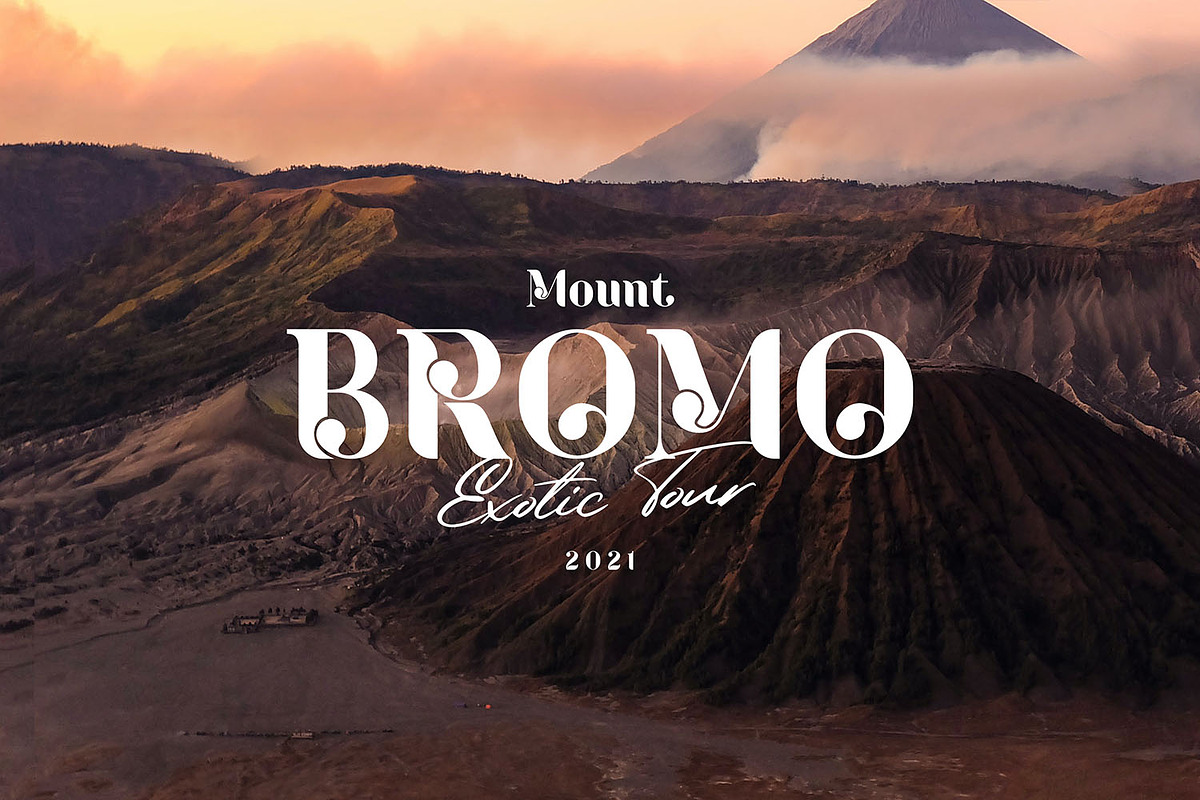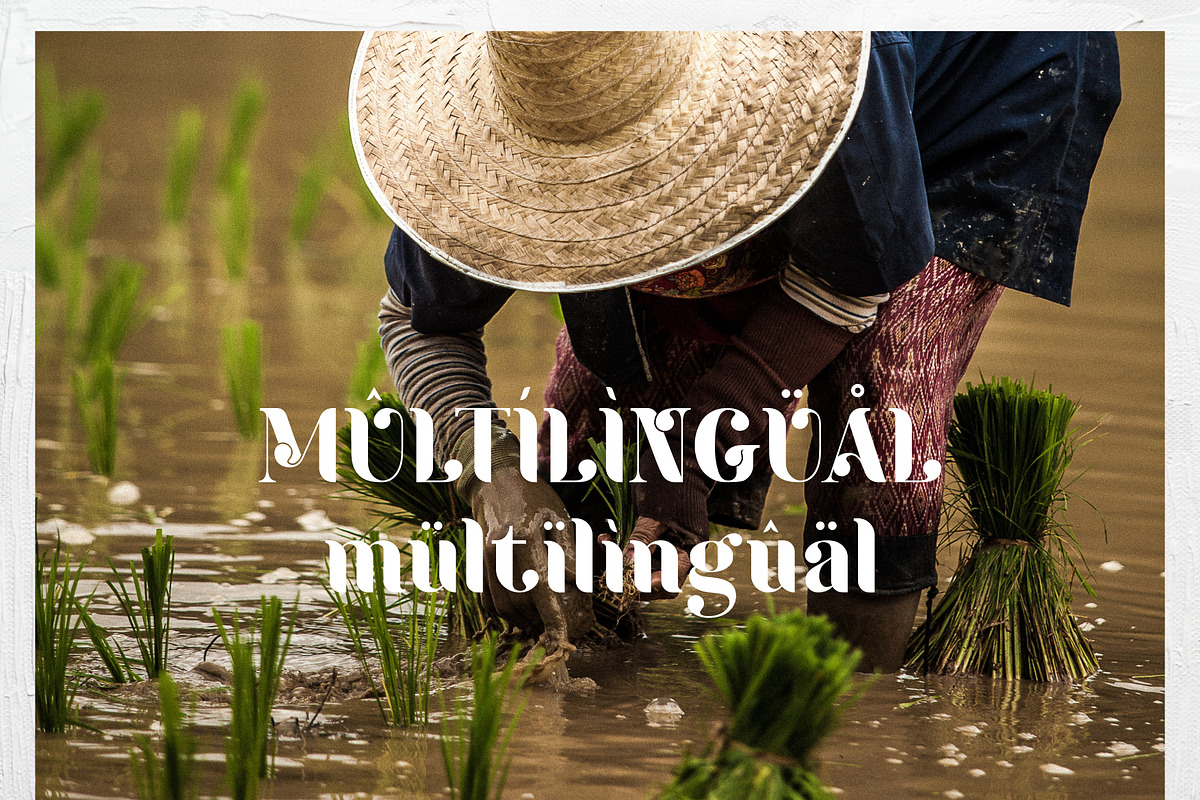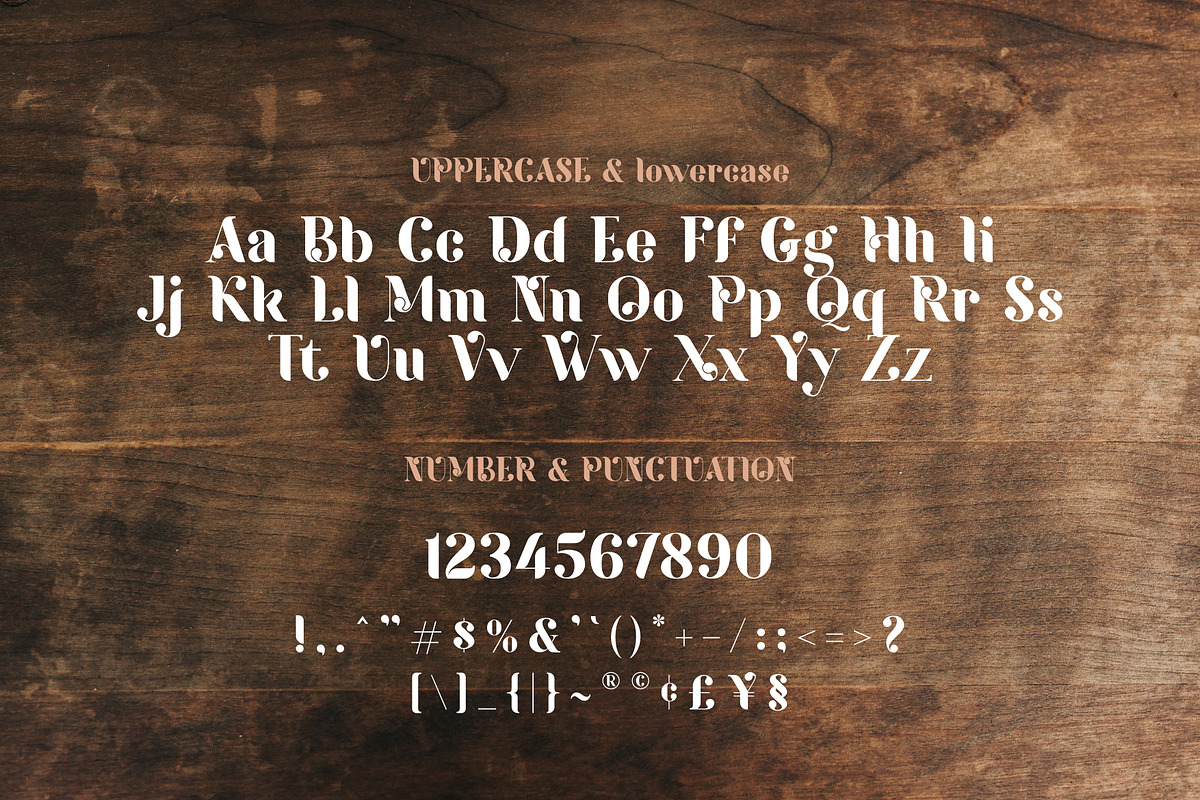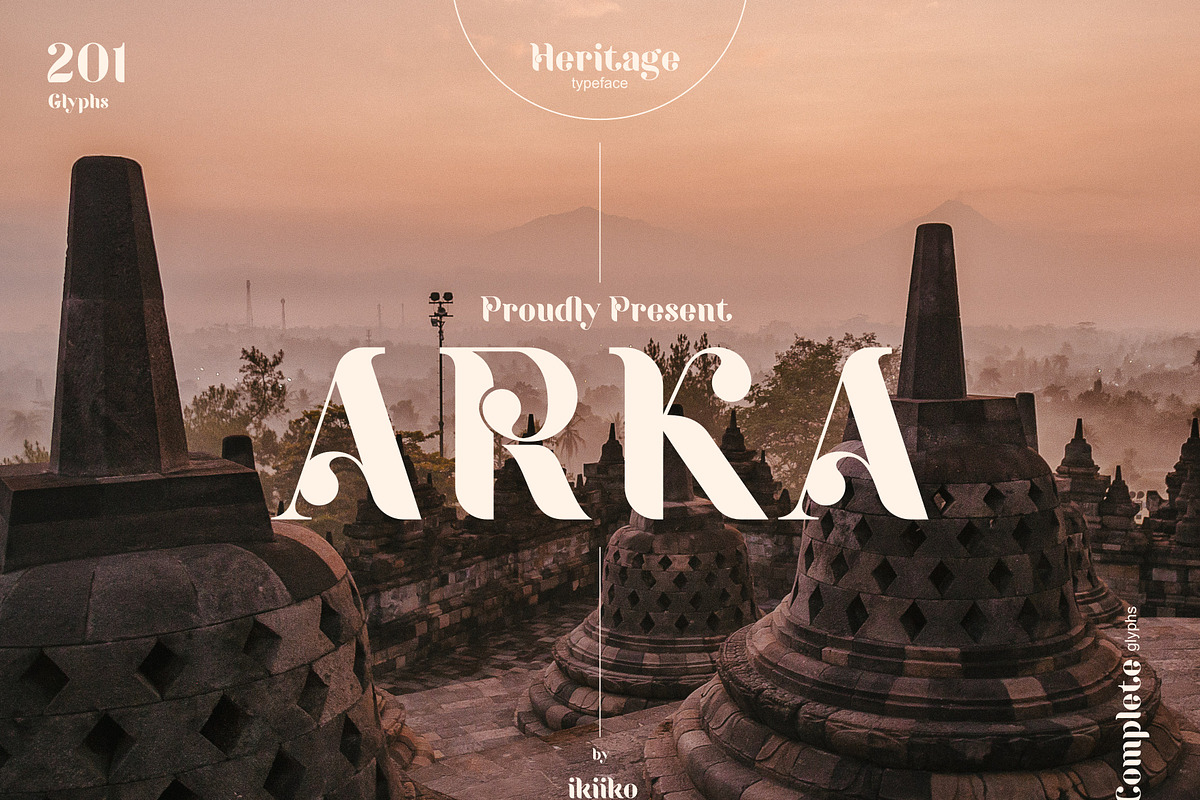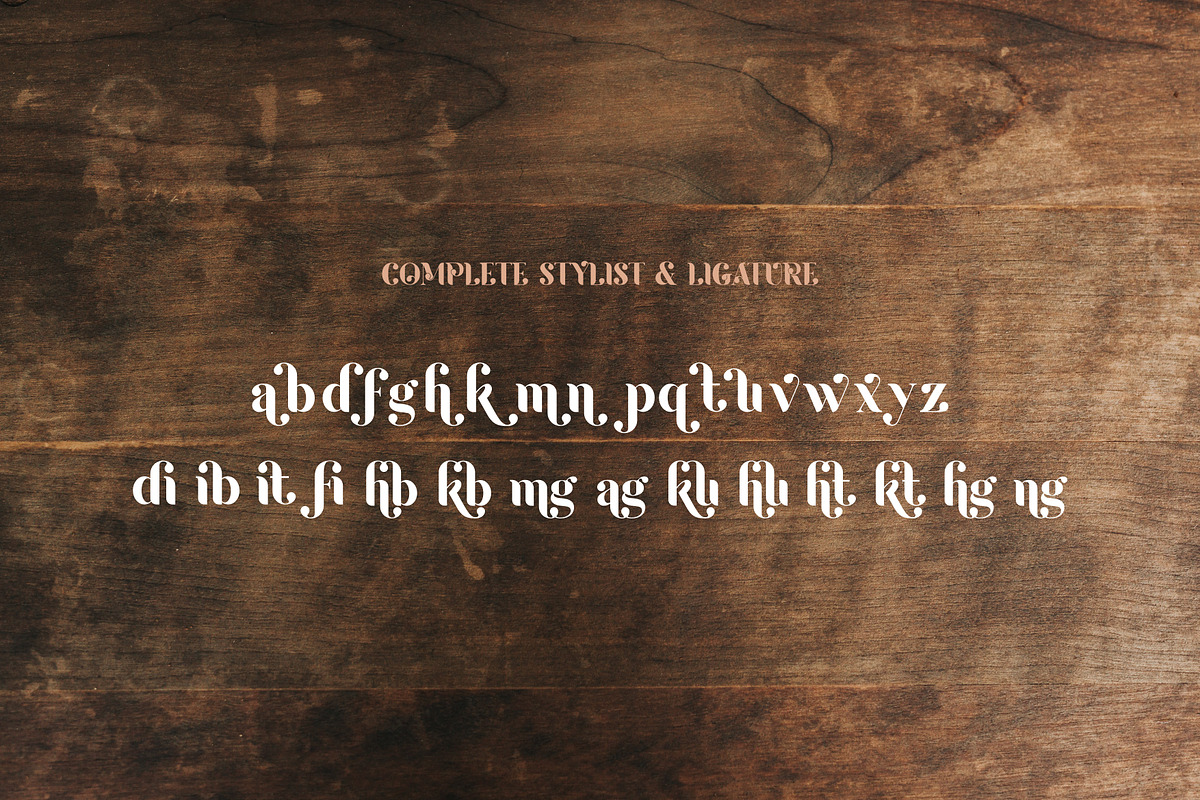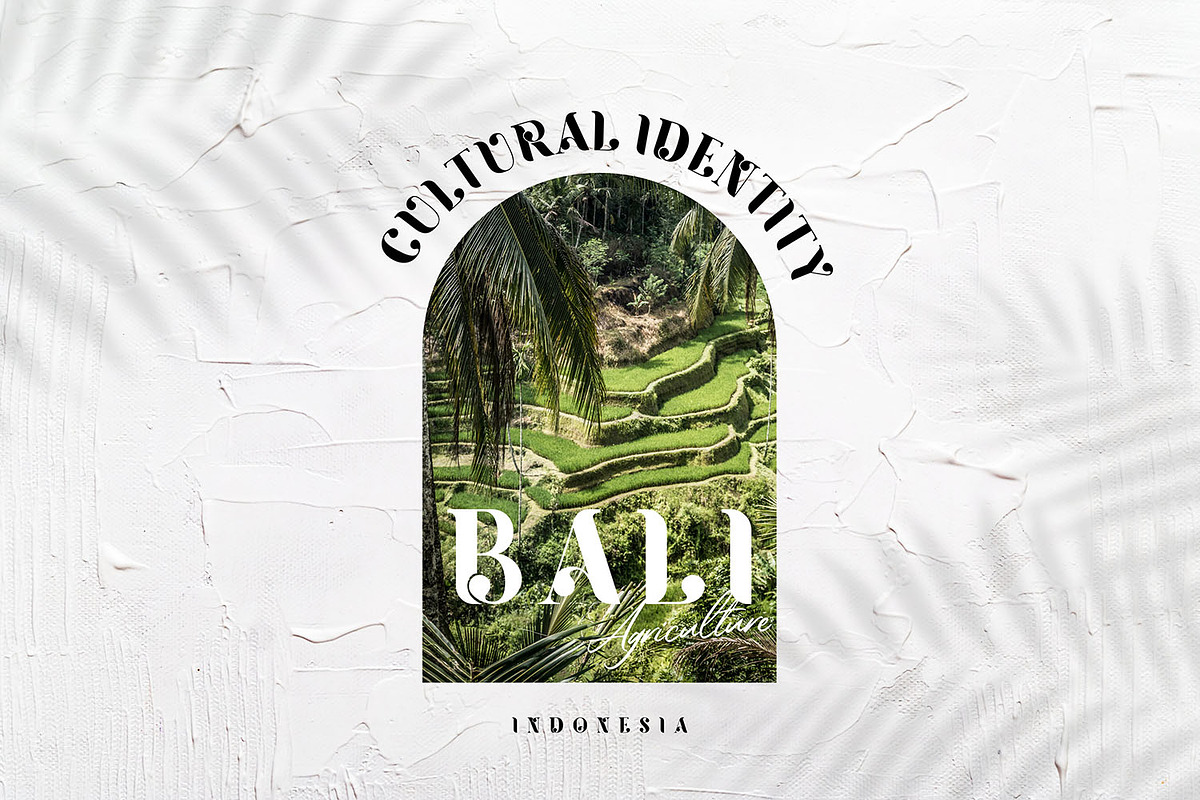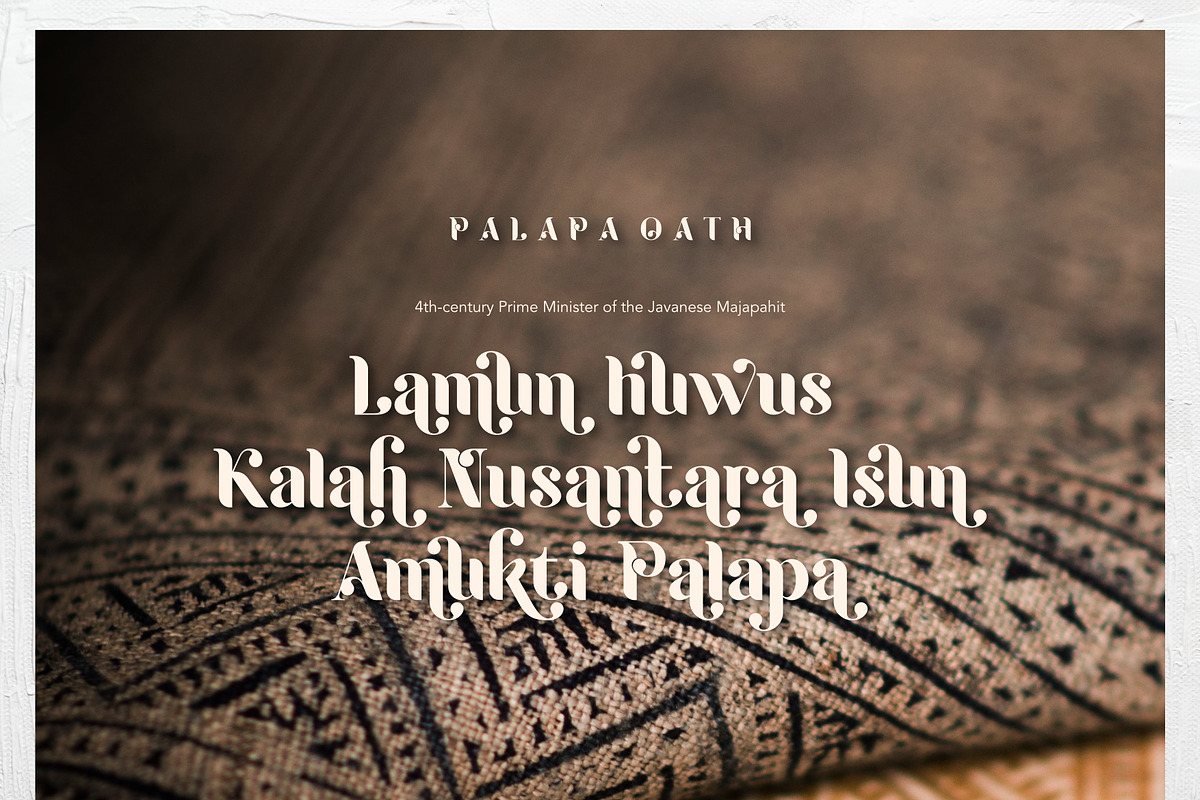
Arka - Heritage Type
Proudly present Arka - Heritage Type, created by ikiiko.
A beautiful heritage feel & look with a touch of craftmanship typeface. Arka was crafted by hand with love to traditional heritage to get elegant font with beautiful ligatures. All characters have an perfect shape design. It easily cooperating together and perfect for crafting the traditional style logos, labels, package design, lettering, patterns and others.
- Uppercase & Lowercase, Numbers, Punctuation
- Complete Stylist & Ligatures